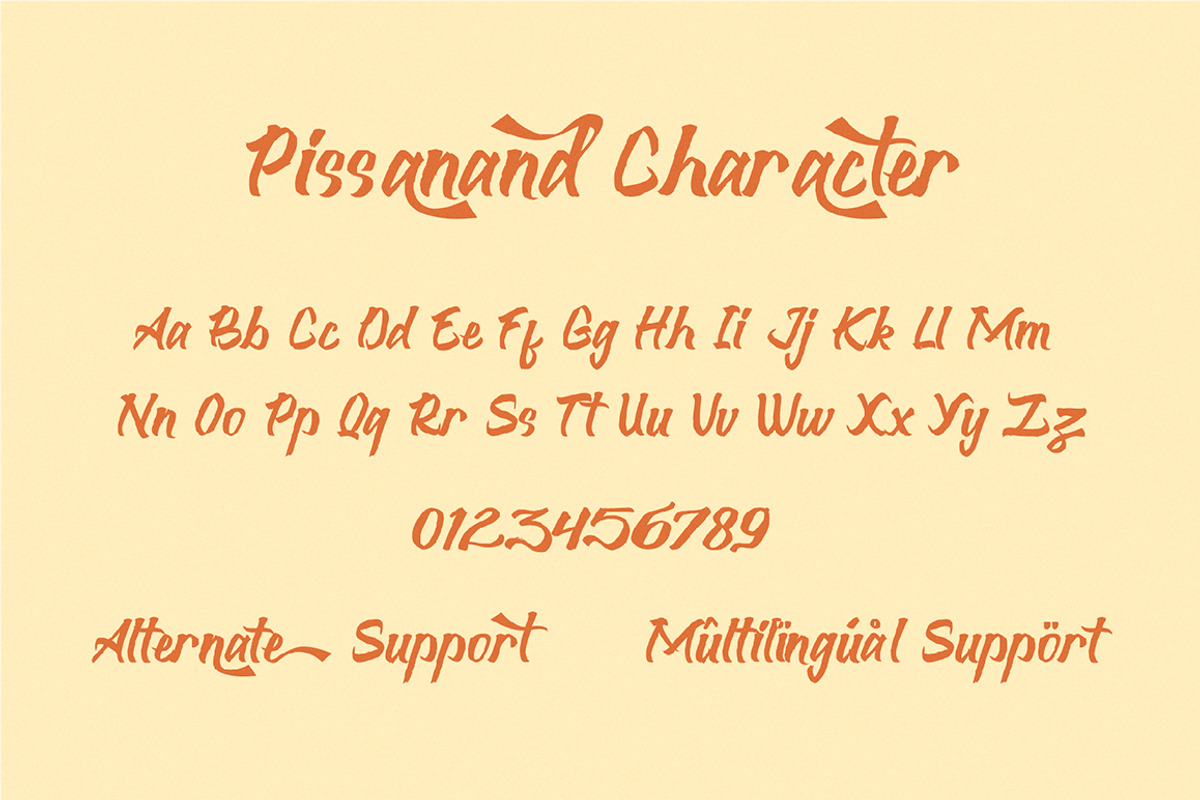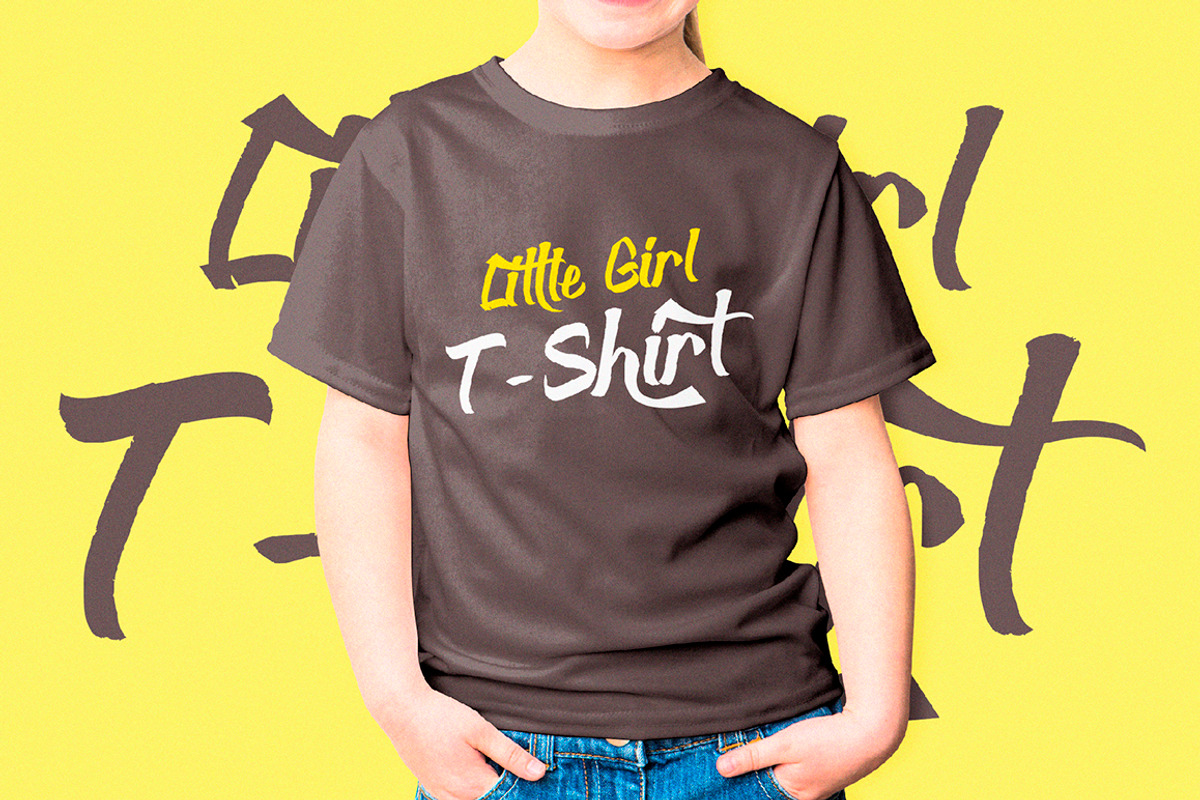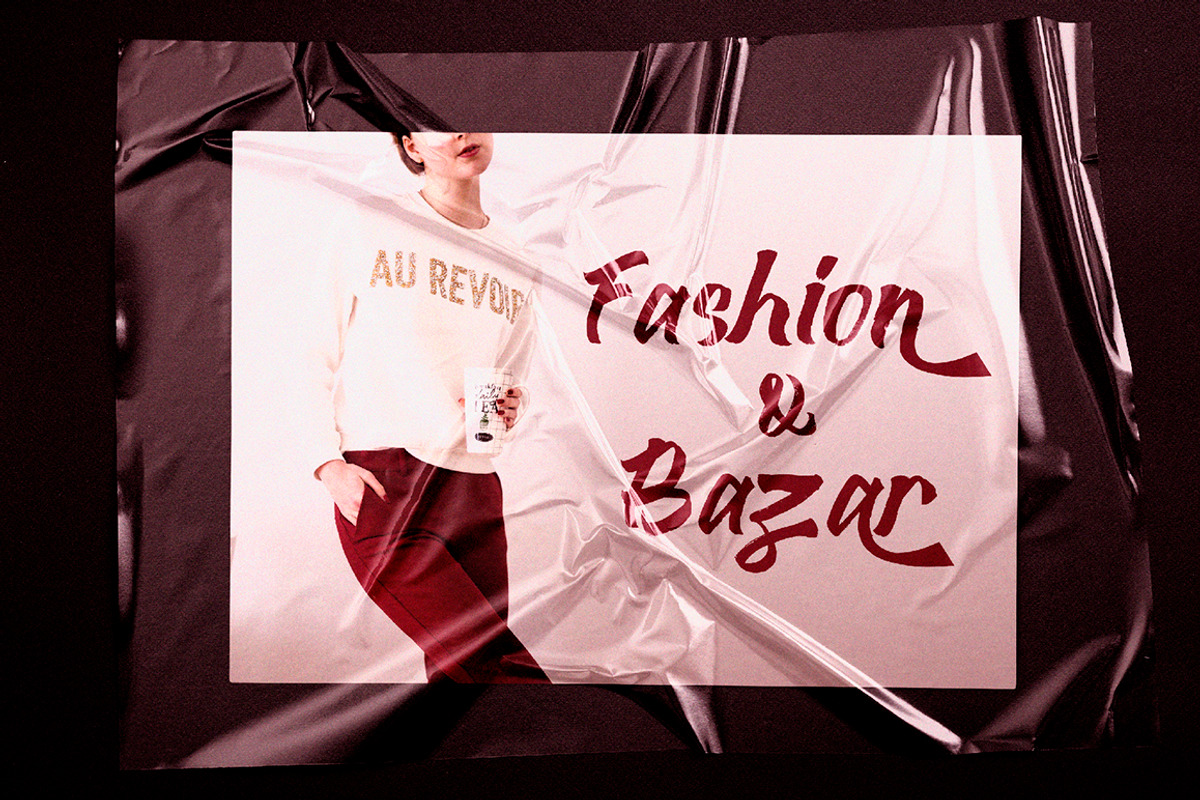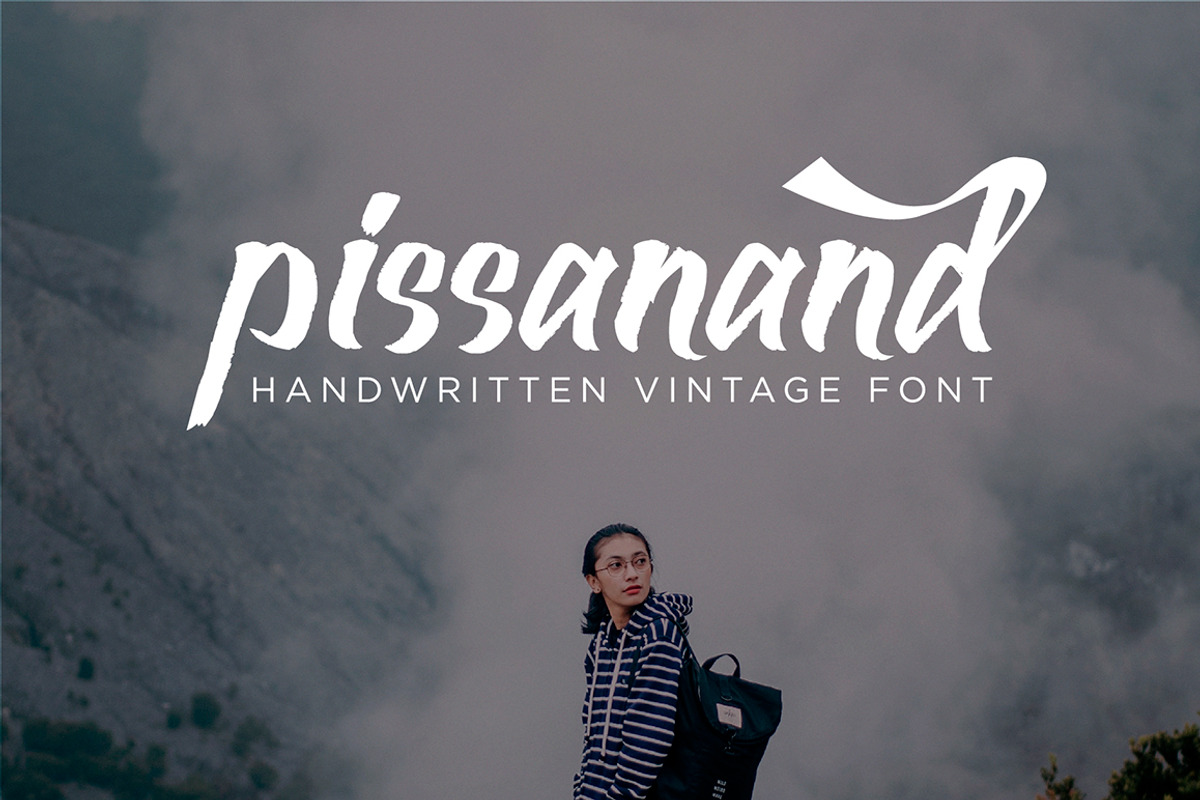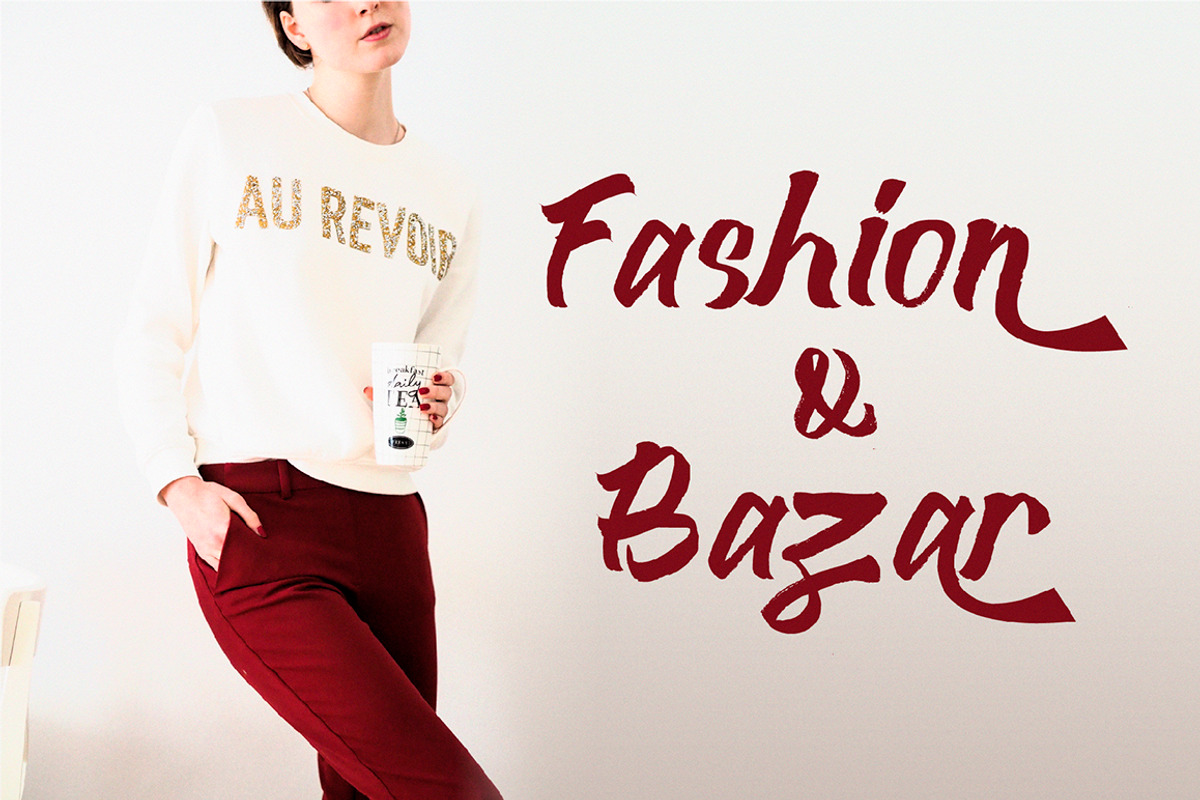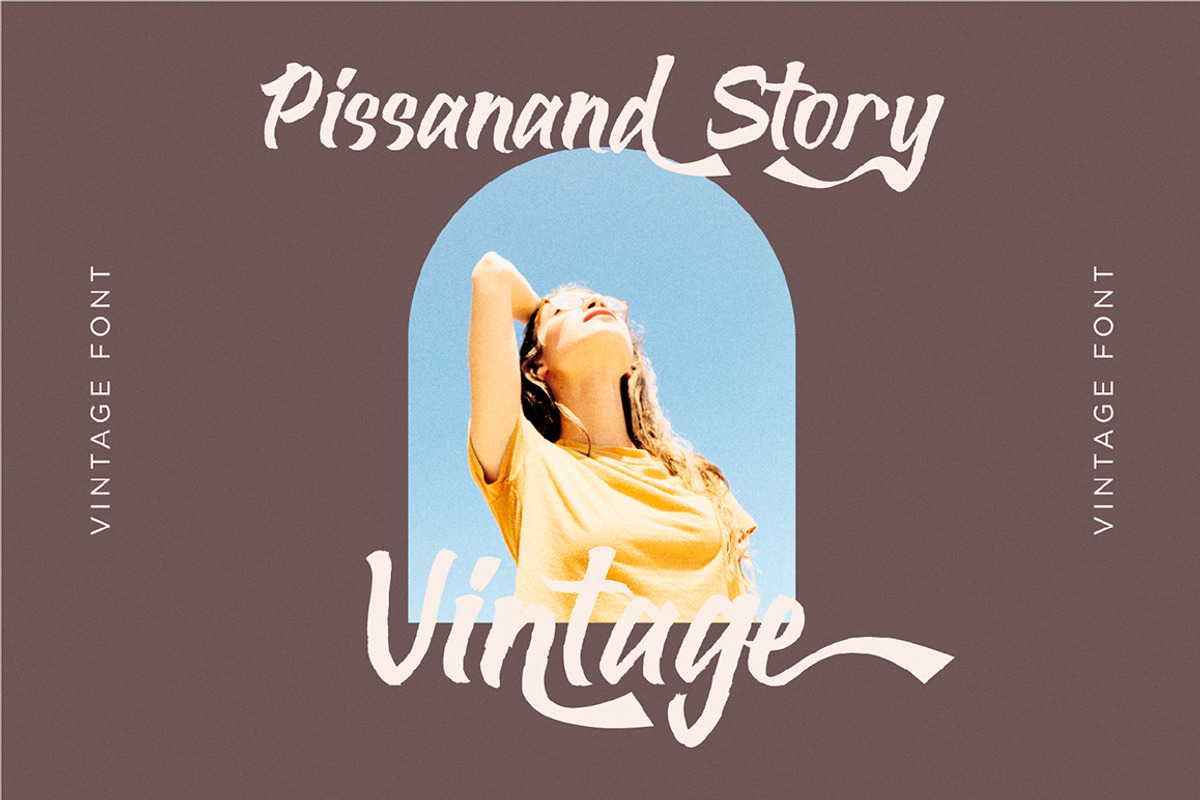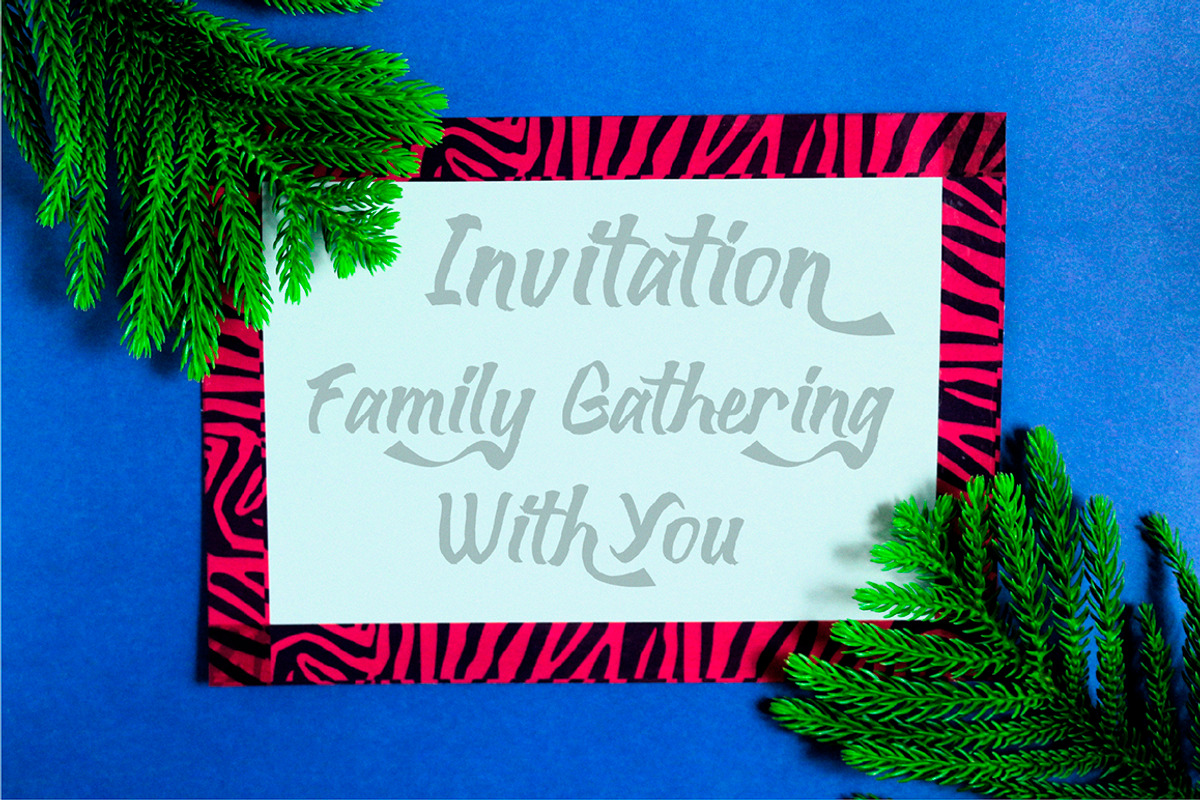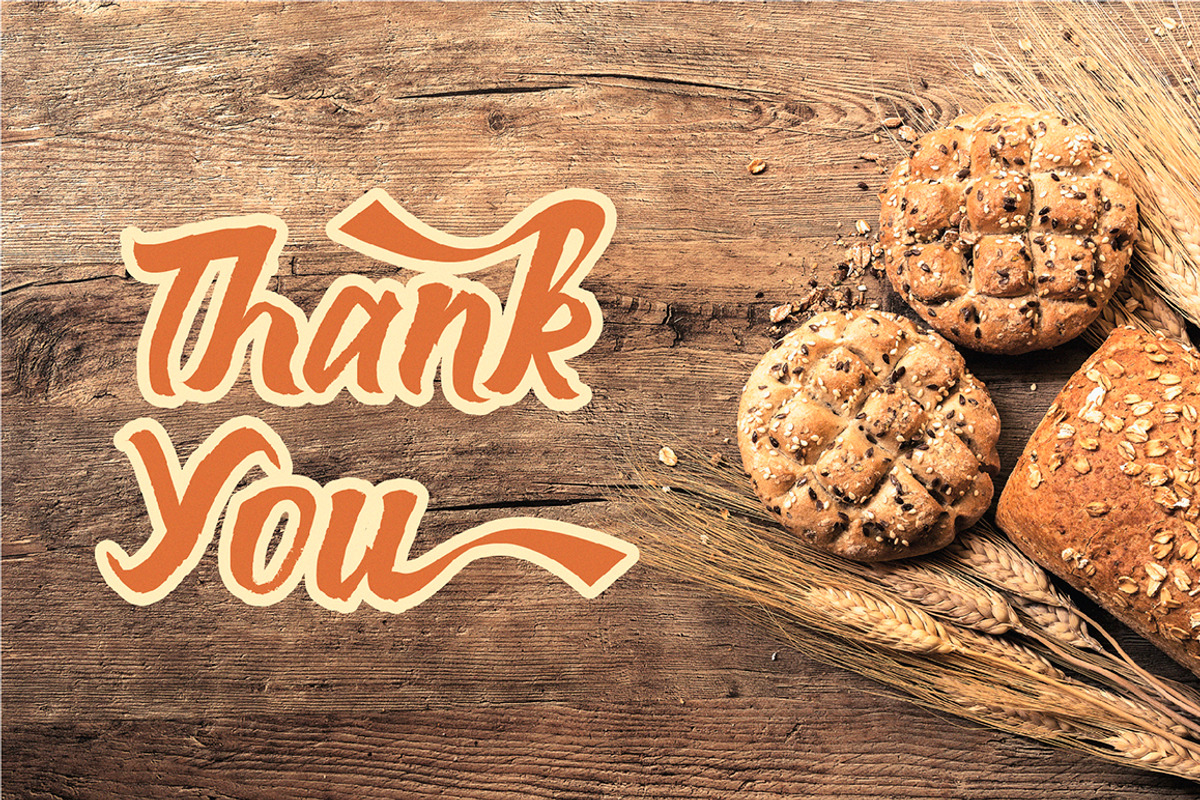
Pissanand Handwriten Vintage
Pissanand Handwriten Vintage is a stylish and refined handwritten font. It looks beautiful on a variety of designs requiring a personalized style, such as wedding invitations, thank you cards, weddings, greeting cards, logos and so much more. This font is PUA encoded which means you can access all of the glyphs and swashes with ease!